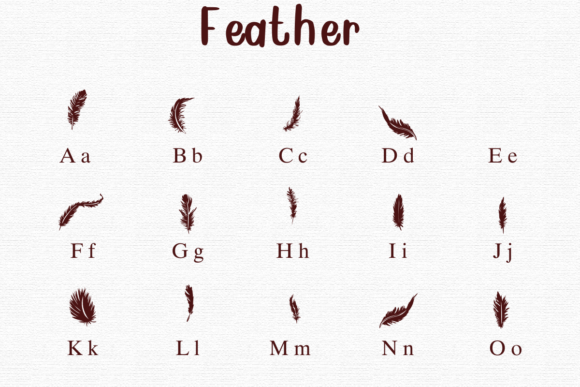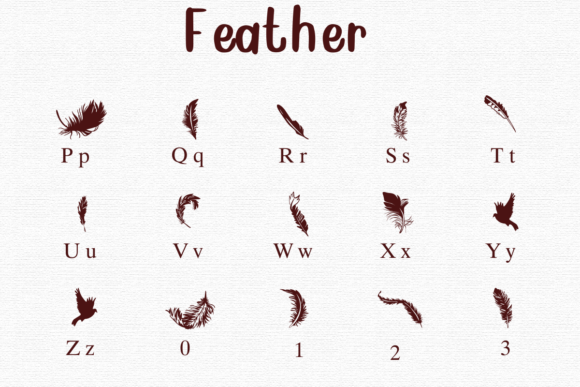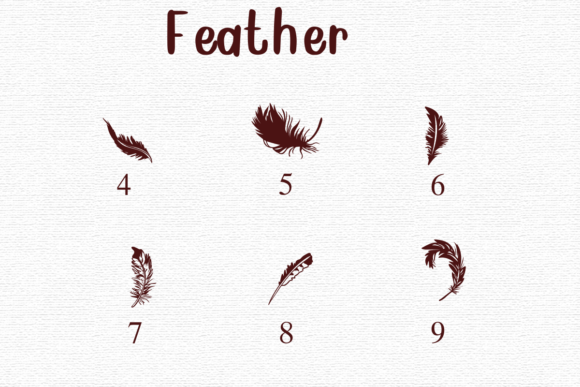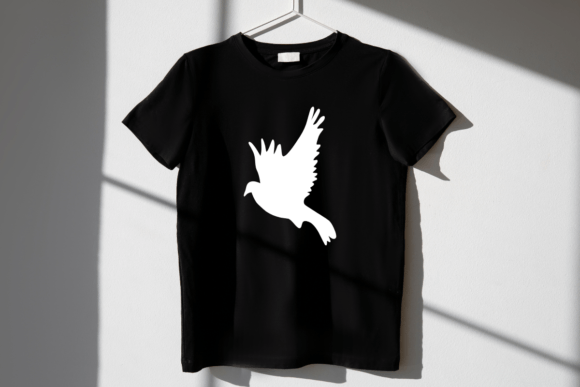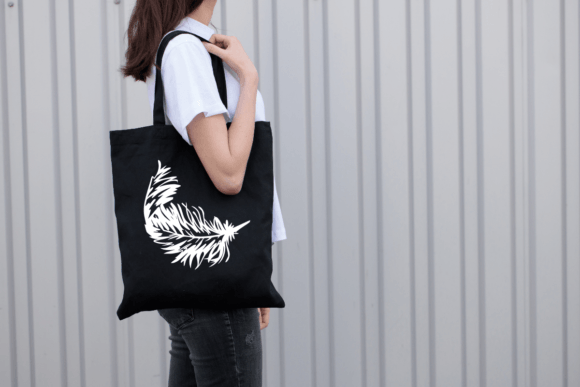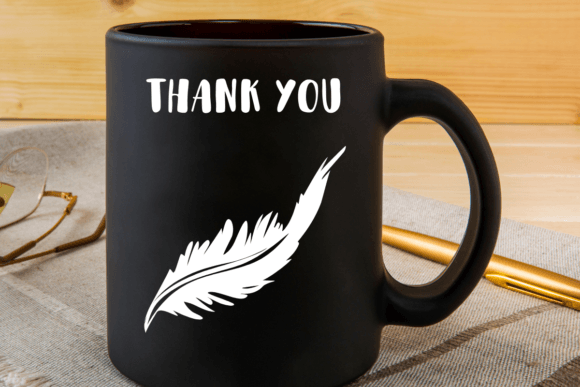
Introducing Feather Font: Elevate Your Creative Projects with a Sketched Chic Touch
Are you a designer, crafter, or DIY enthusiast looking for a unique and creative way to add a personal touch to your projects? Look no further than Feather Font, a stunning dingbats font with a sketched style that’s sure to inspire. In this article, we’ll dive into the world of Feather Font, exploring its features, uses, and benefits, and showing you how it can enhance your creative projects, from wedding invitations to logos and beyond.
What is Feather Font?
Feather Font is a beautiful dingbats font that features a distinctive sketched style. Unlike traditional fonts, dingbats fonts are comprised of symbols, icons, and graphics rather than letters and numbers. Feather Font takes this concept to the next level with its delicate, hand-sketched designs that evoke a sense of whimsy and elegance.
Key Features of Feather Font
- Sketched style: Feather Font boasts a charming, hand-sketched aesthetic that’s perfect for adding a personal touch to your projects.
- Dingbats design: This font features a range of symbols, icons, and graphics that can be used to create unique and eye-catching designs.
- Versatile: Feather Font can be used for a wide range of creative projects, from wedding invitations and DIY crafts to logos and decorations.
Uses for Feather Font
Feather Font is an incredibly versatile font that can be used in a variety of creative projects. Here are just a few ideas to get you started:
- Wedding invitations: Add a touch of elegance and whimsy to your wedding invitations with Feather Font’s beautiful, sketched designs.
- DIY crafts: Use Feather Font to create custom labels, tags, and other embellishments for your DIY crafts.
- Logos and branding: Feather Font’s unique designs make it an excellent choice for logos, business cards, and other branding materials.
- Decorations: Create custom decorations, such as garlands, banners, and signs, using Feather Font’s intricate designs.
Benefits of Using Feather Font
So why choose Feather Font for your creative projects? Here are just a few benefits:
- Adds a personal touch: Feather Font’s unique, hand-sketched designs allow you to add a personal touch to your projects.
- Stand out from the crowd: With Feather Font, you can create designs that are truly one-of-a-kind and eye-catching.
- Easy to use: As a dingbats font, Feather Font is easy to use and can be incorporated into your designs with just a few clicks.
Tips for Using Feather Font
To get the most out of Feather Font, here are a few tips:
- Experiment with different sizes and colors: Play around with different sizes and colors to find the perfect combination for your project.
- Combine with other fonts: Pair Feather Font with other fonts to create a unique and visually appealing design.
- Use as a design element: Use Feather Font as a design element, such as a border or accent, to add visual interest to your project.
Feather Font is a beautiful, versatile dingbats font that’s perfect for designers, crafters, and DIY enthusiasts looking to add a personal touch to their creative projects. With its sketched style, range of symbols and icons, and ease of use, Feather Font is an excellent choice for anyone looking to create unique and eye-catching designs. Whether you’re creating wedding invitations, logos, or decorations, Feather Font is sure to inspire and elevate your creative projects.